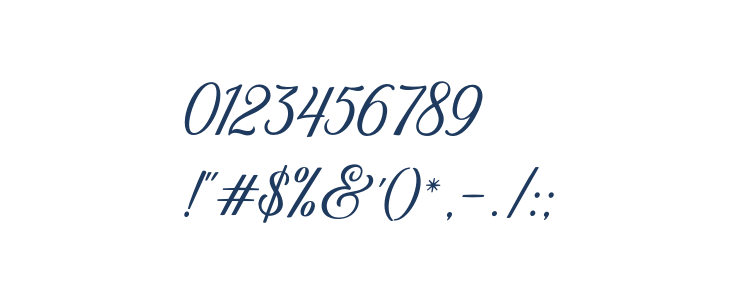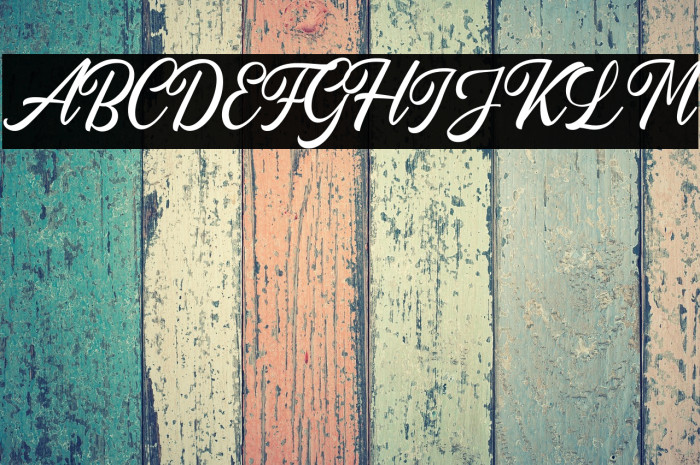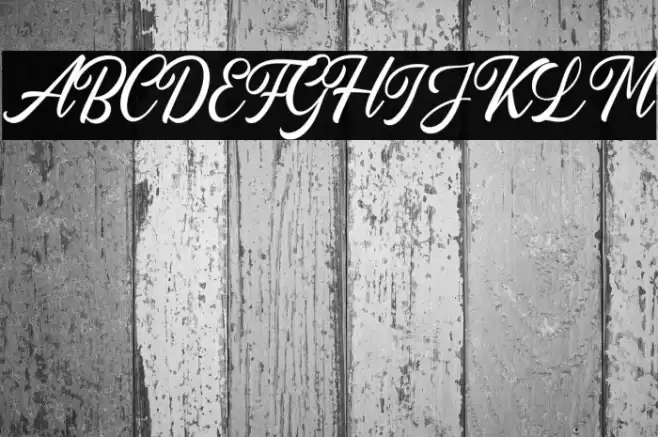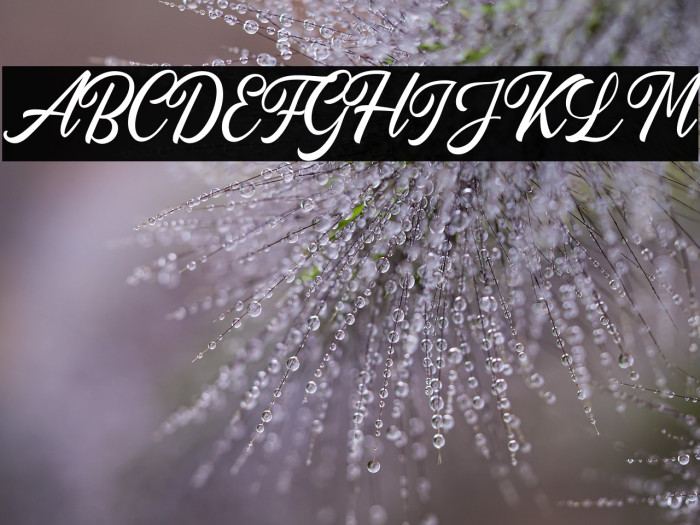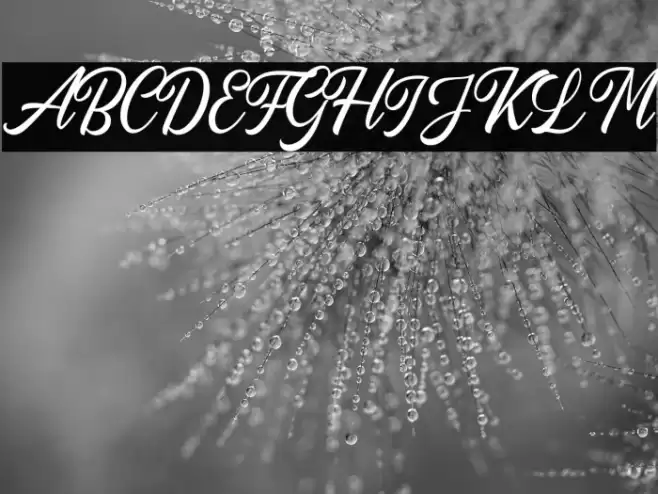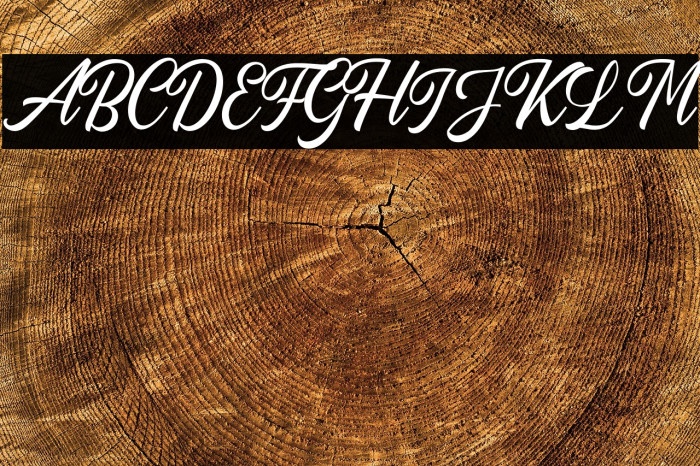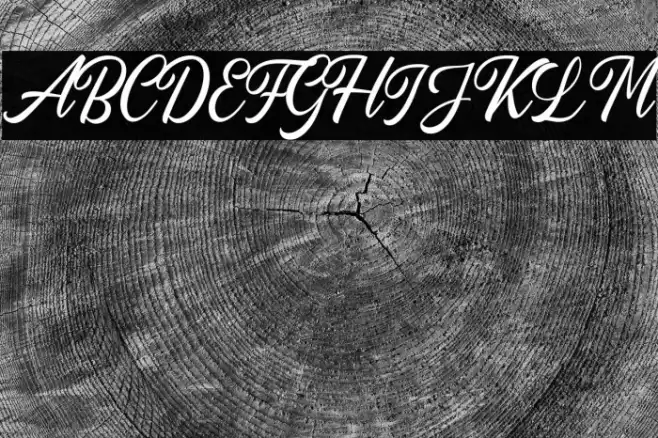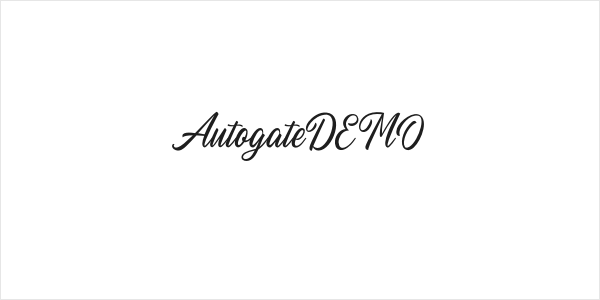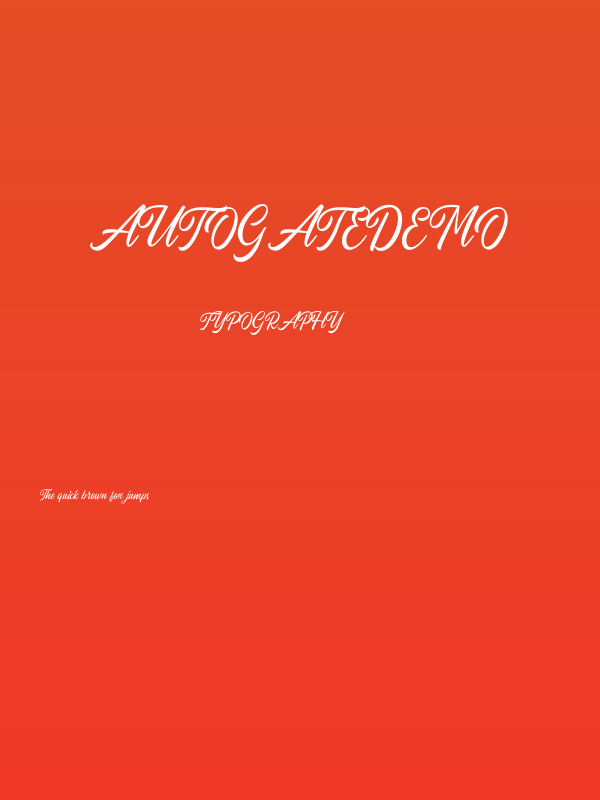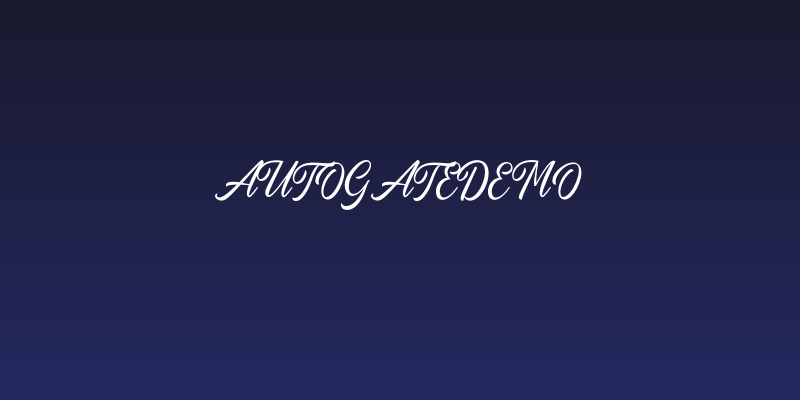
AutogateDEMO Font
AutogateDEMO Description
This elegant script font features flowing, cursive letterforms that exude a sense of sophistication and grace. The uppercase letters are bold and sweeping, with intricate loops and flourishes that add a decorative touch. The lowercase letters maintain a consistent slant, enhancing the fluidity of the text. Numerals are designed with a similar flair, making them visually cohesive with the alphabet. Special characters are thoughtfully integrated, ensuring versatility in various design contexts. The overall appearance is both classic and modern, making it suitable for a wide range of applications.
| Proposed Projects | Ideal for wedding invitations, elegant branding, luxury product packaging, and artistic posters. |